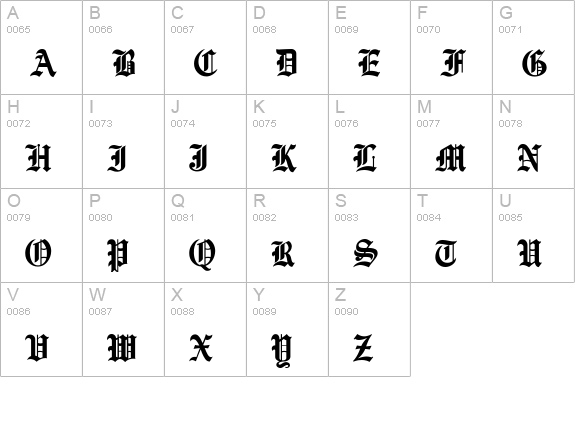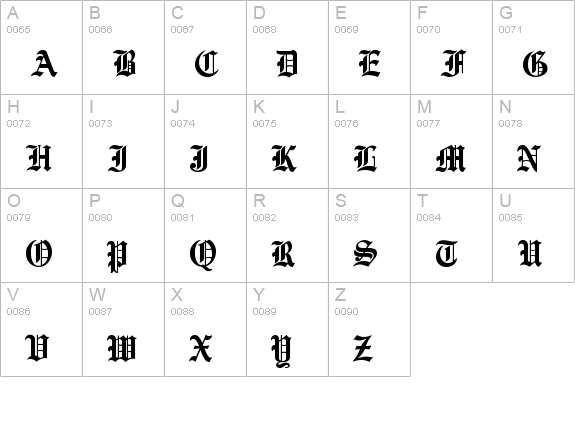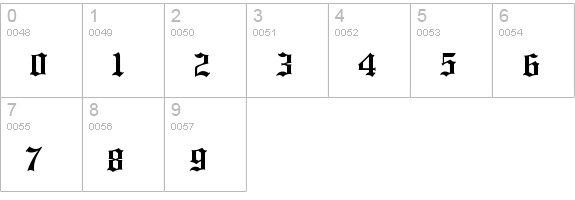
EnglishTowne font is a classic and elegant typeface that exudes sophistication and charm. With its timeless design and exquisite details, this font is perfect for adding a touch of refinement to any project. Whether you're creating invitations, branding materials, or editorial content, EnglishTowne font will elevate your work to the next level. The best part is that EnglishTowne font is completely free to download at FontsMarket.com. You can easily access this stunning font and use it in your designs without any cost. Don't miss out on the opportunity to enhance your projects with the beauty of EnglishTowne font - download it today and elevate your design game!